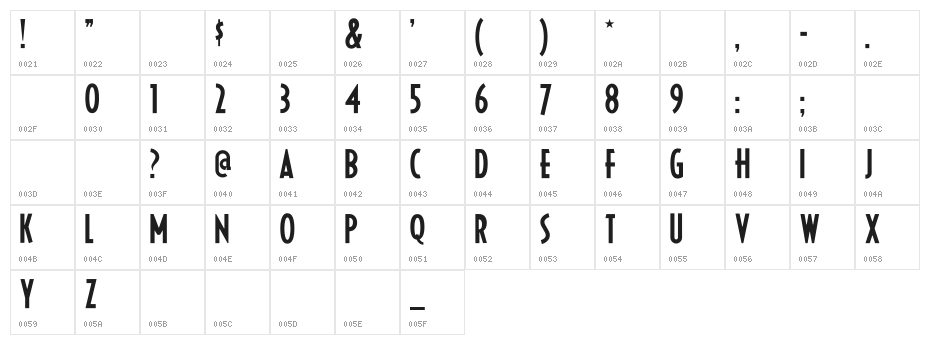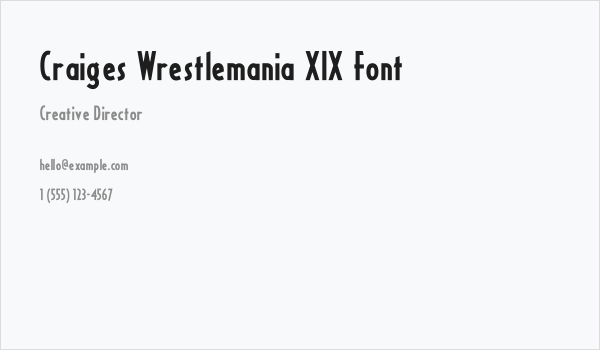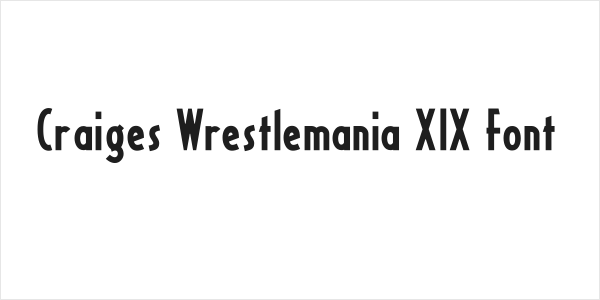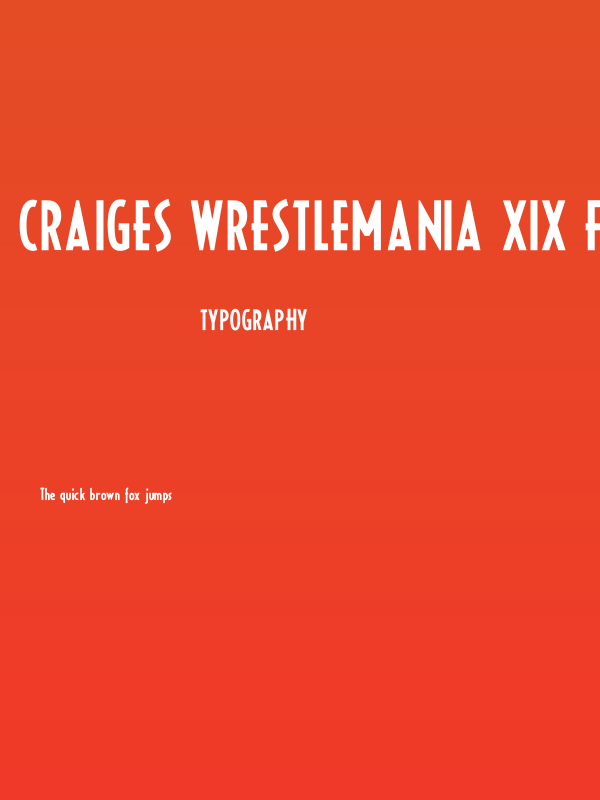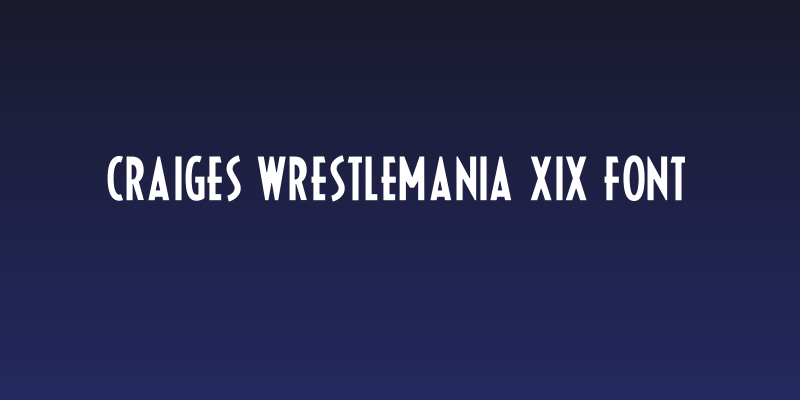
Craiges Wrestlemania XIX Font Font
Craiges Wrestlemania XIX Font Description
This font features bold, geometric letterforms with a strong presence. The uppercase letters are tall and slightly condensed, giving a sense of authority and impact. The lowercase letters maintain a consistent style, with a slight variation in stroke width that adds a dynamic feel. The numerals are clear and legible, matching the overall boldness of the alphabet. Special characters are designed with the same attention to detail, ensuring consistency across all glyphs. This font's design is both modern and versatile, making it suitable for a range of applications.
| Proposed Projects | Ideal for branding, posters, headlines, and any project requiring a bold statement. |